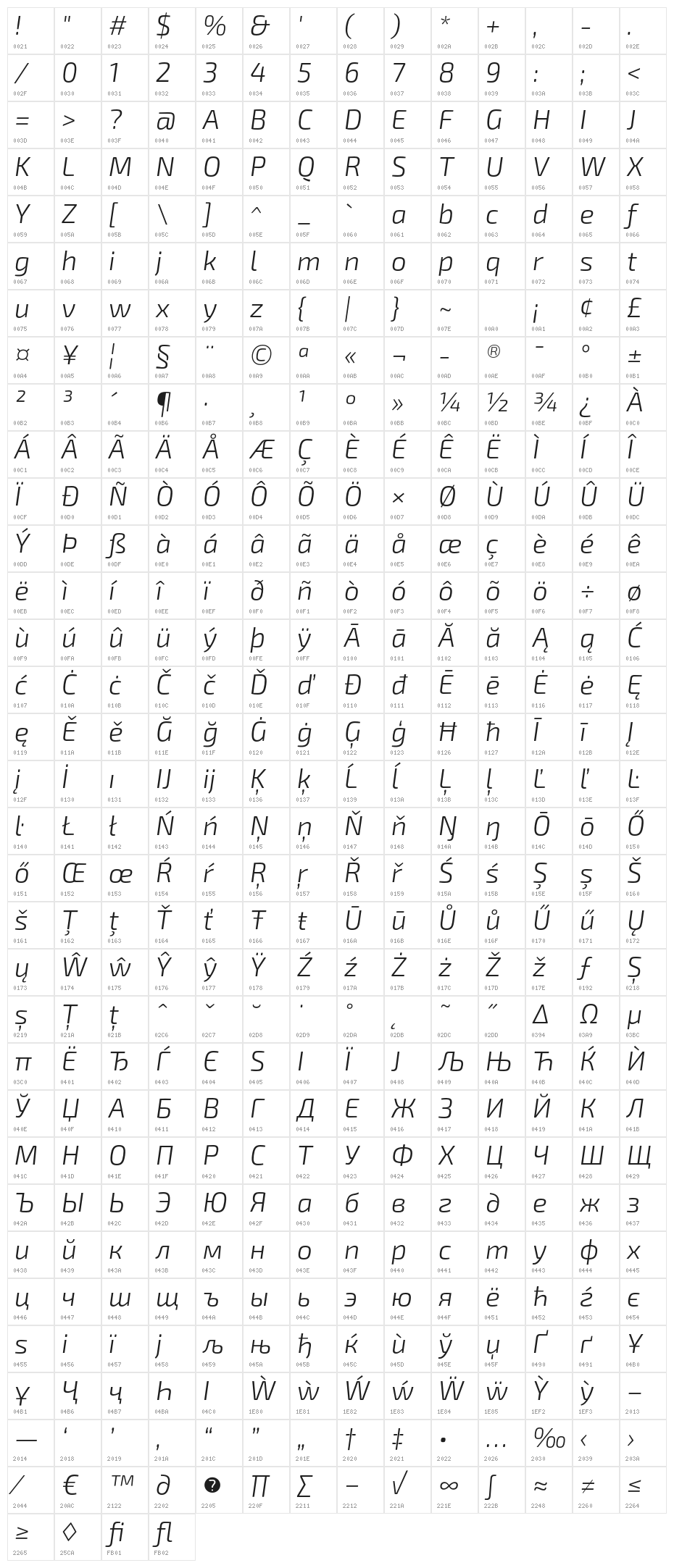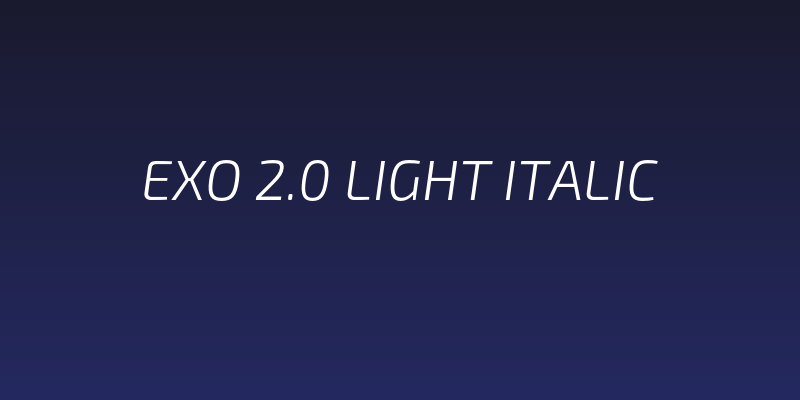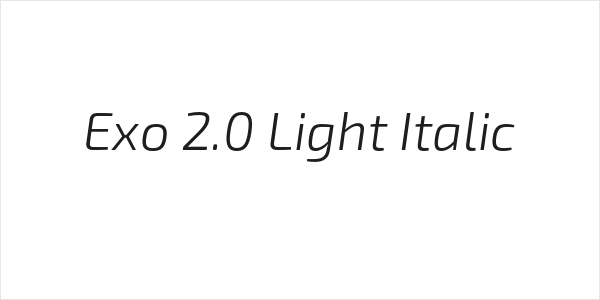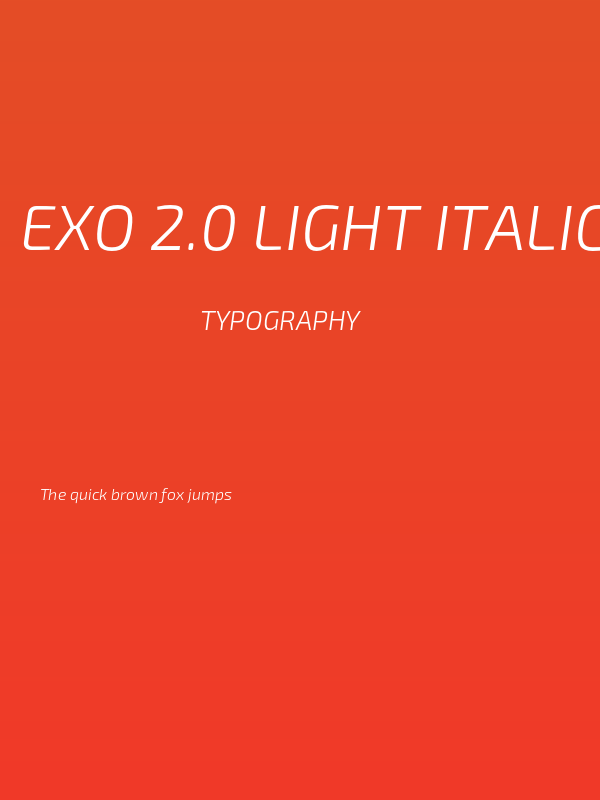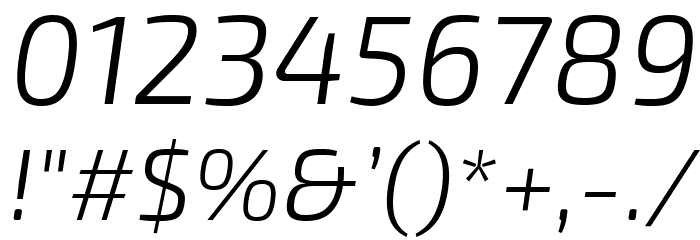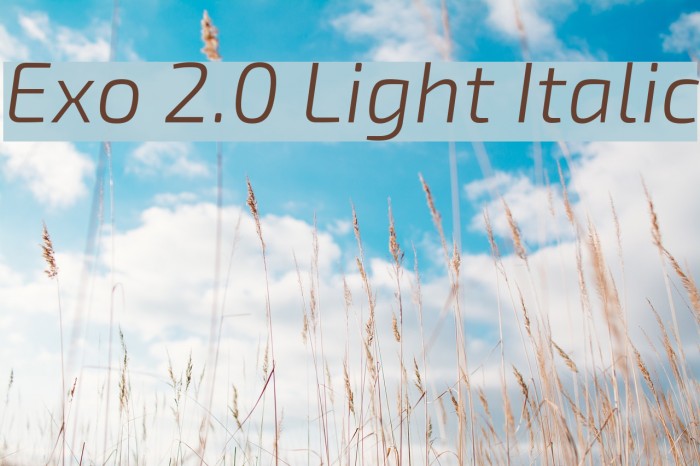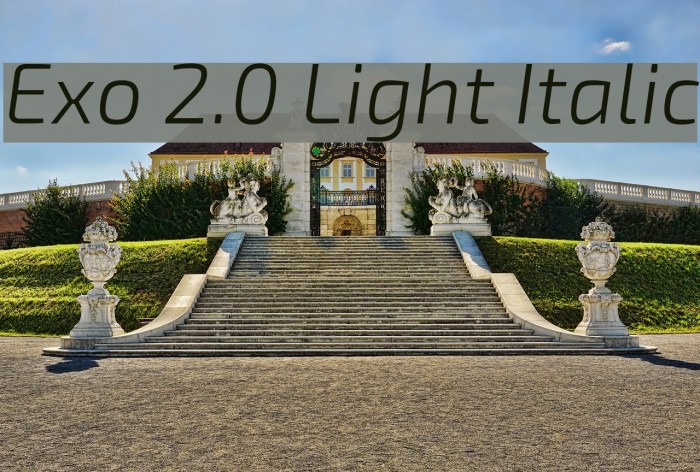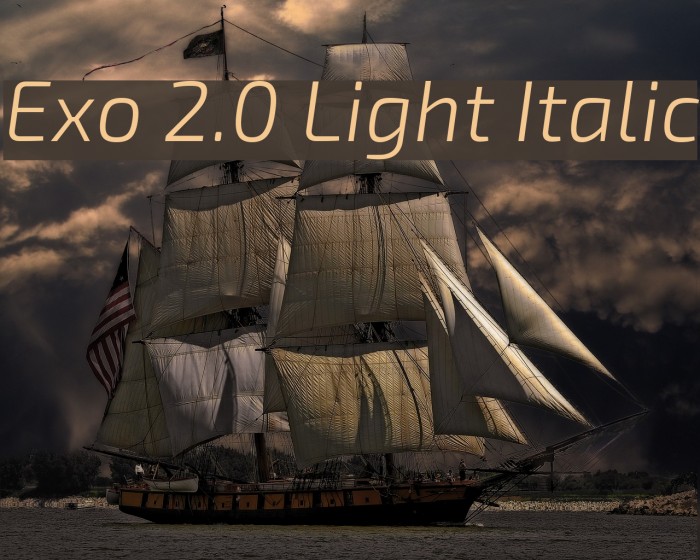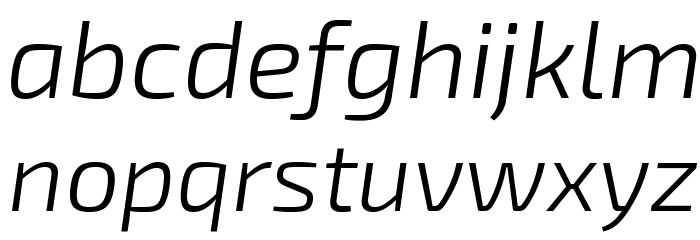
Exo 2.0 Light Italic Font
This font features a sleek and modern design with a slight italic slant, giving it a dynamic and forward-moving appearance. The characters are crafted with a light weight, providing an airy and elegant feel. The sans-serif style ensures clean lines and a contemporary look, making it versatile for various design applications. The character spacing is normal, allowing for easy readability while maintaining a stylish aesthetic. The font's low contrast in stroke thickness contributes to its minimalist and refined nature, making it suitable for both digital and print media.
| Proposed Projects | Ideal for tech branding, modern websites, app interfaces, and sleek print materials. |